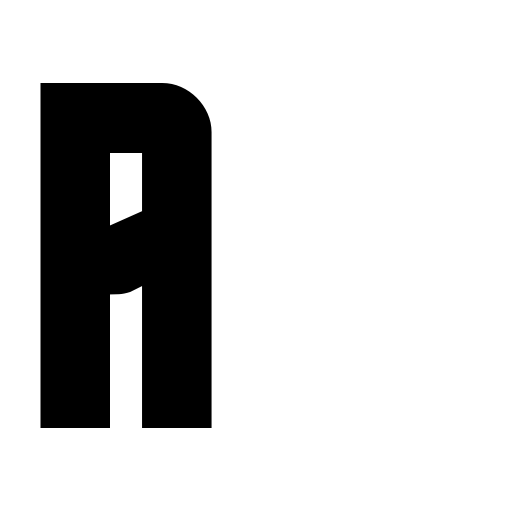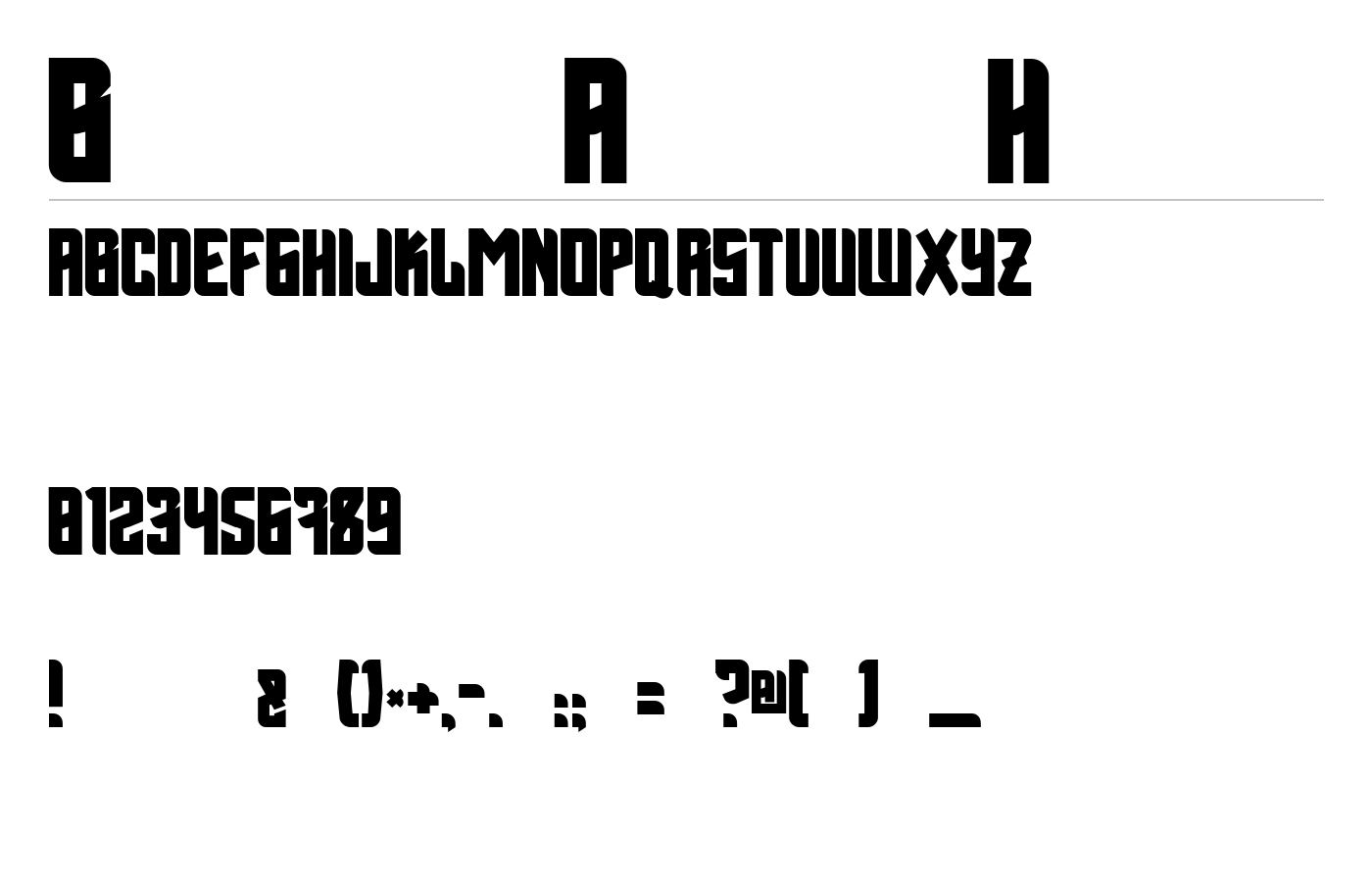
Bill x AspekHndz is a bold, condensed sans serif font with a strong, geometric structure that commands attention. Its heavy weight and sharply cut letterforms create a modern, edgy vibe, making it ideal for striking headlines, logos, and urban-inspired designs where impact and uniqueness are key. This font works best in settings that need a powerful, contemporary look with a touch of street-style attitude.
Bill x AspekHndz Font